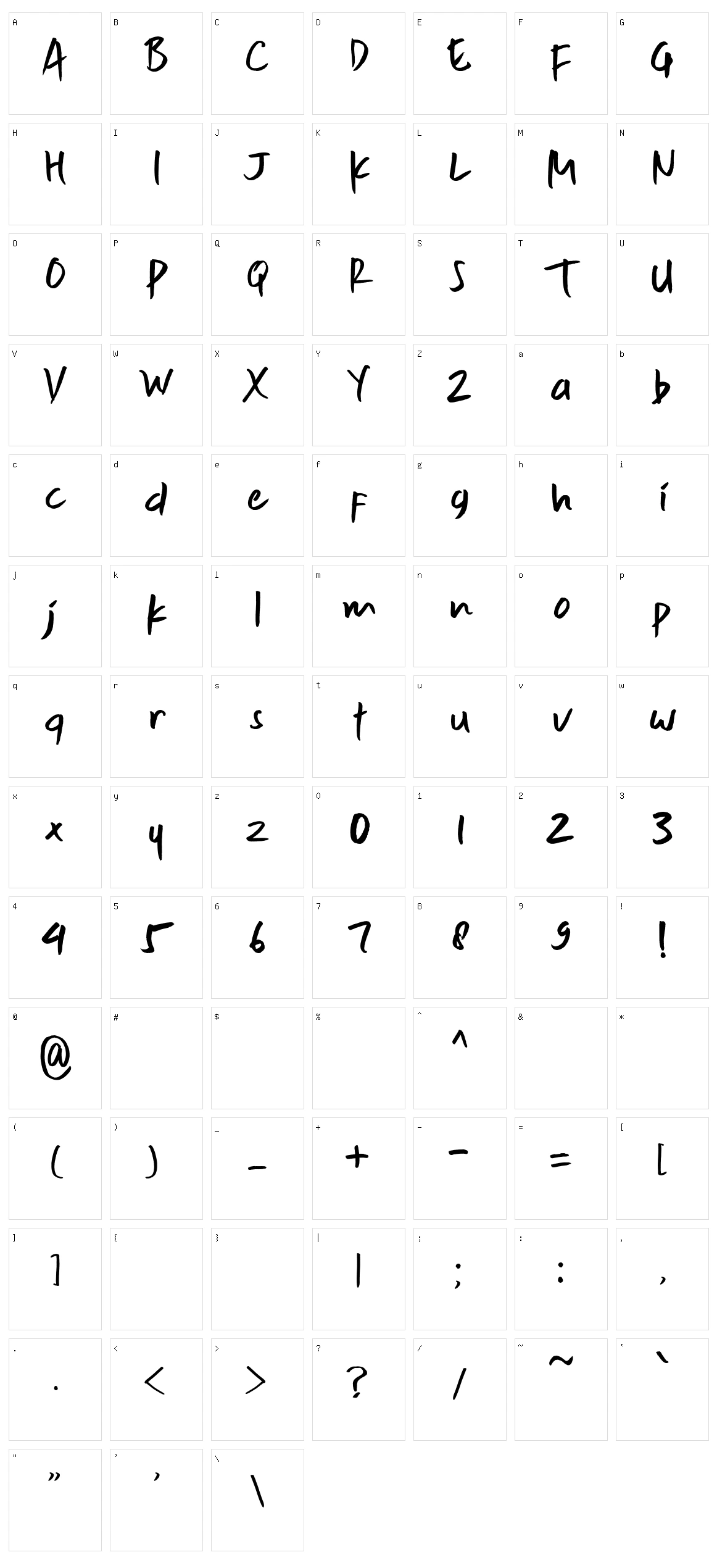
The free font The Tourist is carefully designed by Willetter Studio, showcasing a thoughtful balance of creativity and usability and falls under the Script font style. When you download the ZIP file, it contains only 234.94 KB of font files, making it lightweight and quick to download. Please review the license details below to understand permitted usage and distribution rights. If license information is not available, we recommend using this font for personal projects only or contacting the author directly for commercial usage permissions.